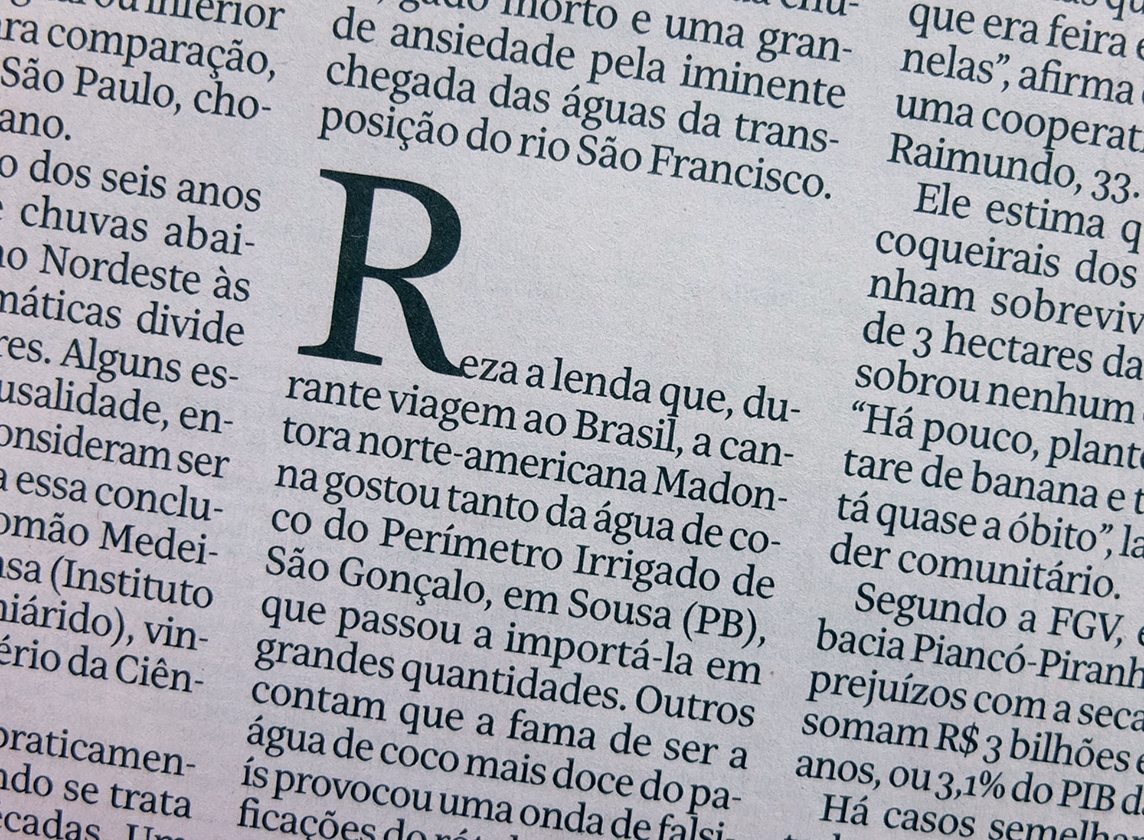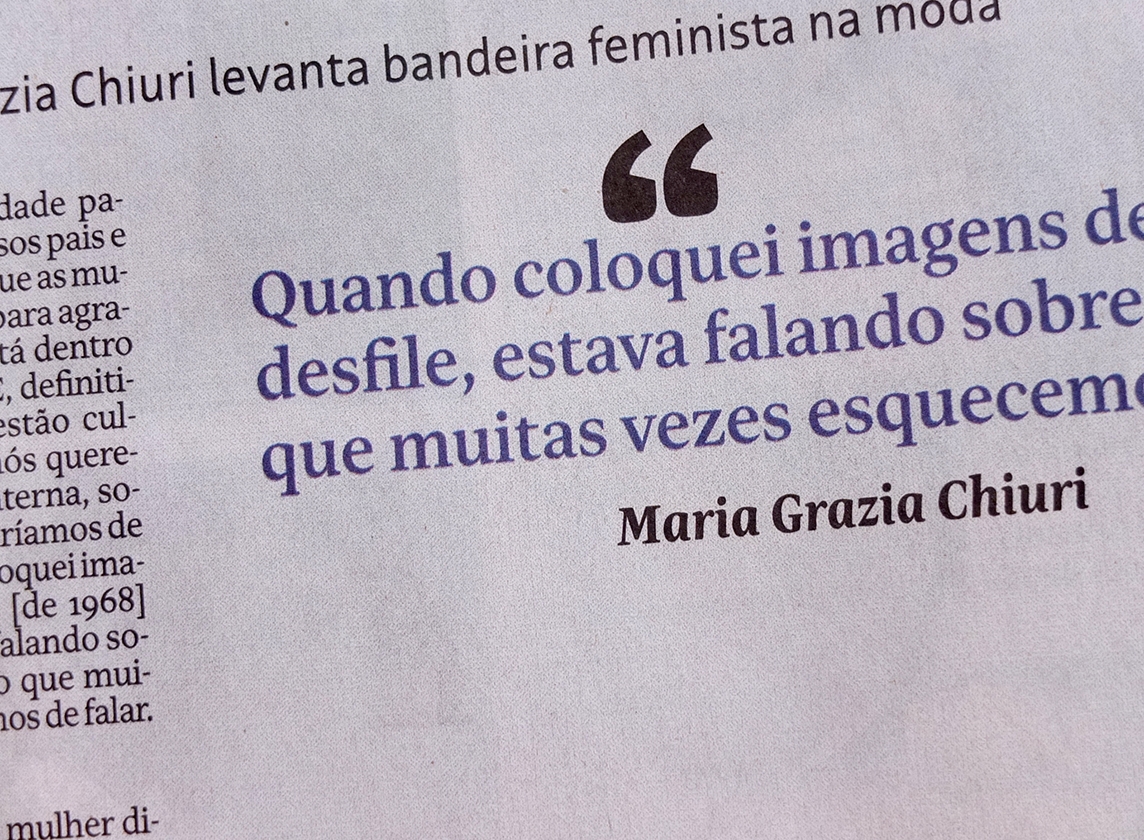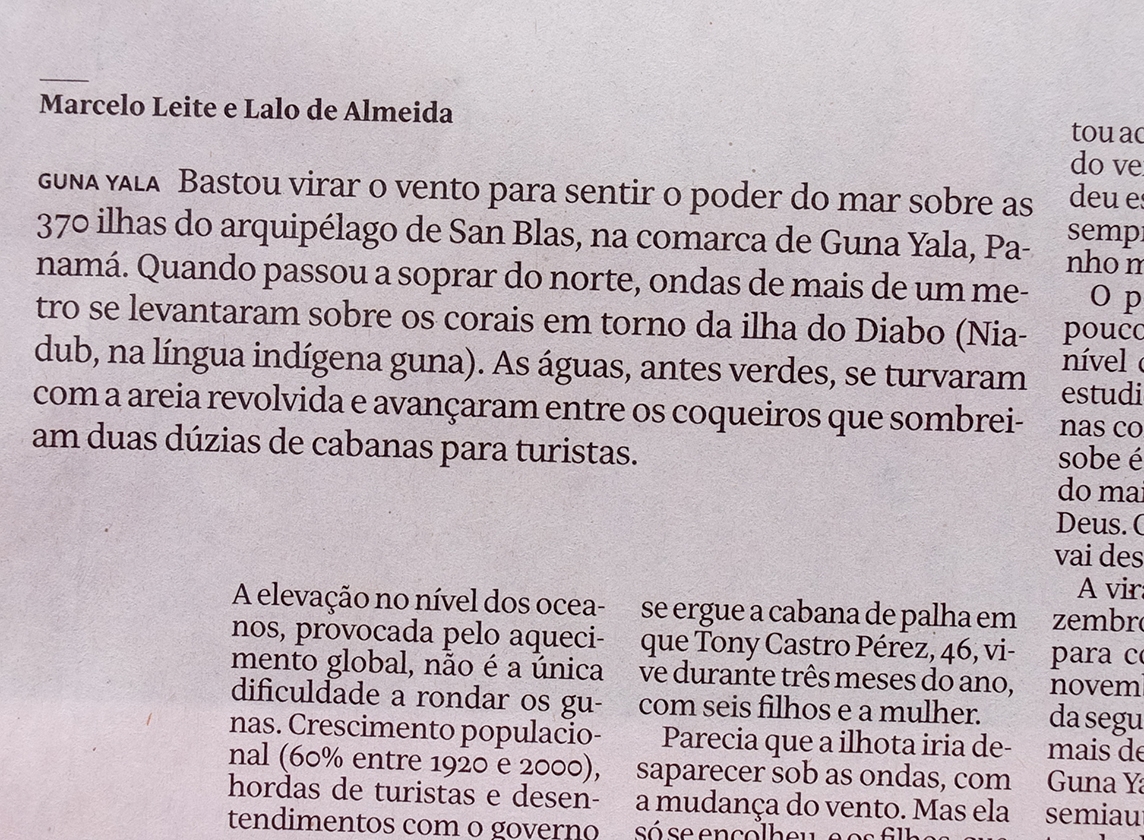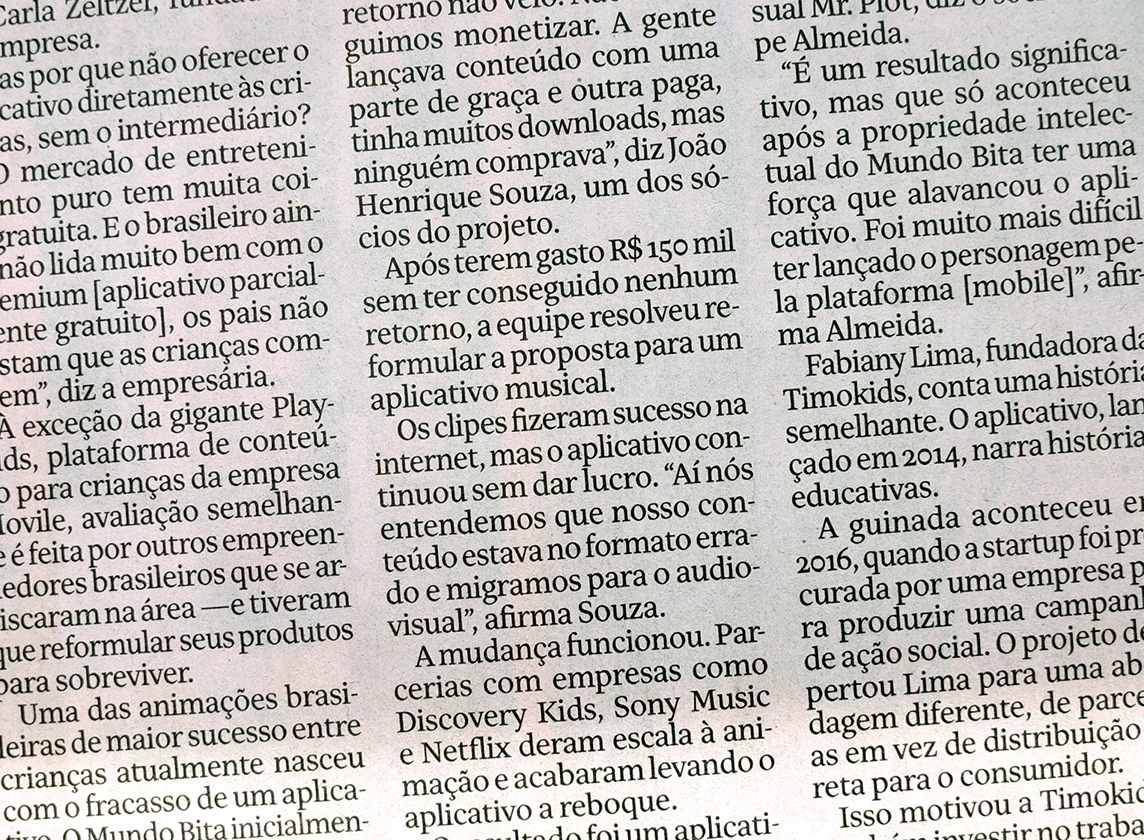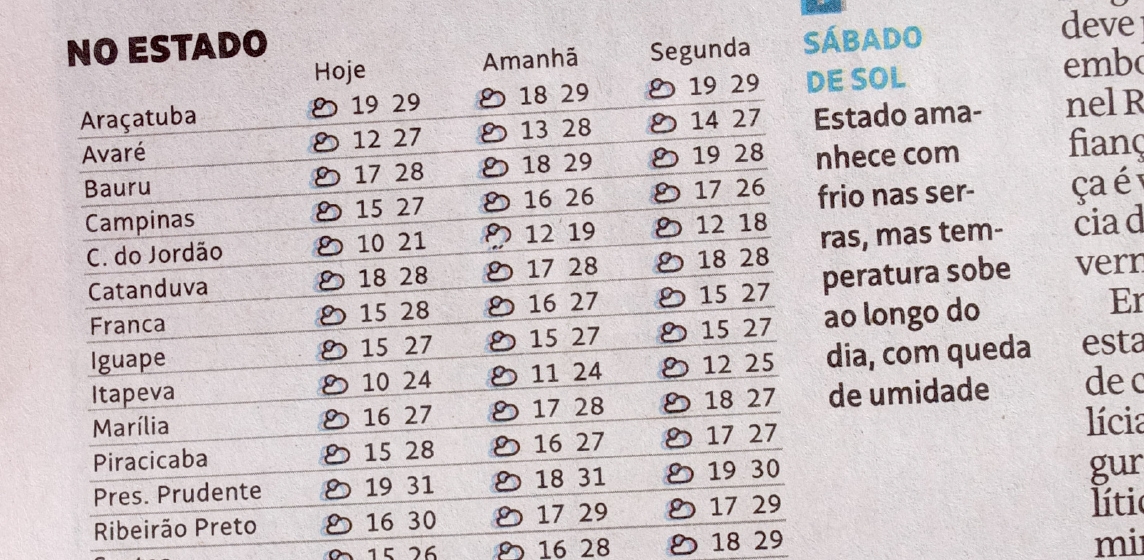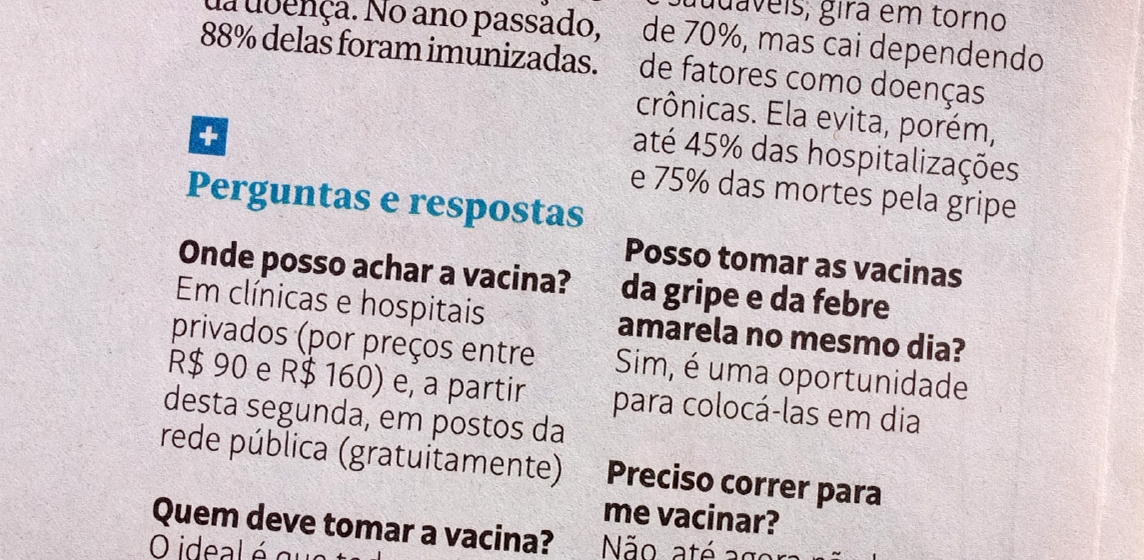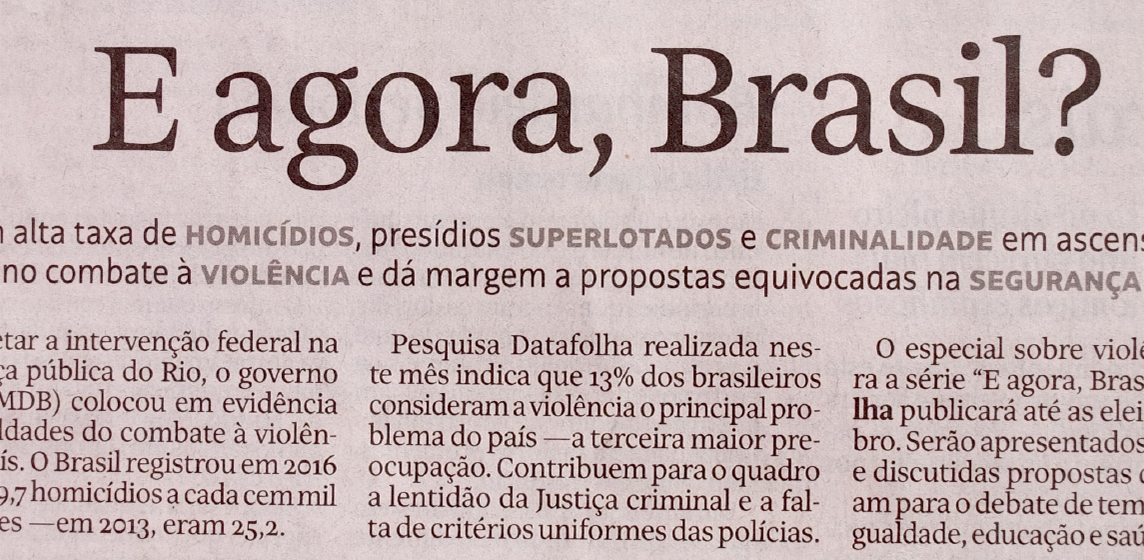
Folha
The serif and sans serif companions Folha Texto and Folha Gráfico are two new co-ordinated type families, commissioned by the Brazilian press group Fohla de São Paulo for the redesign of their newspapers, magazines, and other media, including web solutions and apps. Fohla de São Paulo originally licensed Bulo and Trola Text, both commercial typefaces from the Tipografies catalog, but needed exclusivity. This led us to rethink the designs and create two custom families for the press group. Because their exclusivity is limited to Brazil, Folha Texto and Folha Gráfico are available for commercial licensing in the rest of the world. Our primary aim in the development of Fohla Texto and Fohla Gráfico was to make them inviting above all. To achieve this, we accentuated the humanist traits of the letterforms, and infused the designs with a friendly and warm look.
Script
Latin Extended with small caps
Alternates
aàáâãäāăåą gĝğġģ
Ligatures
ff fi fl